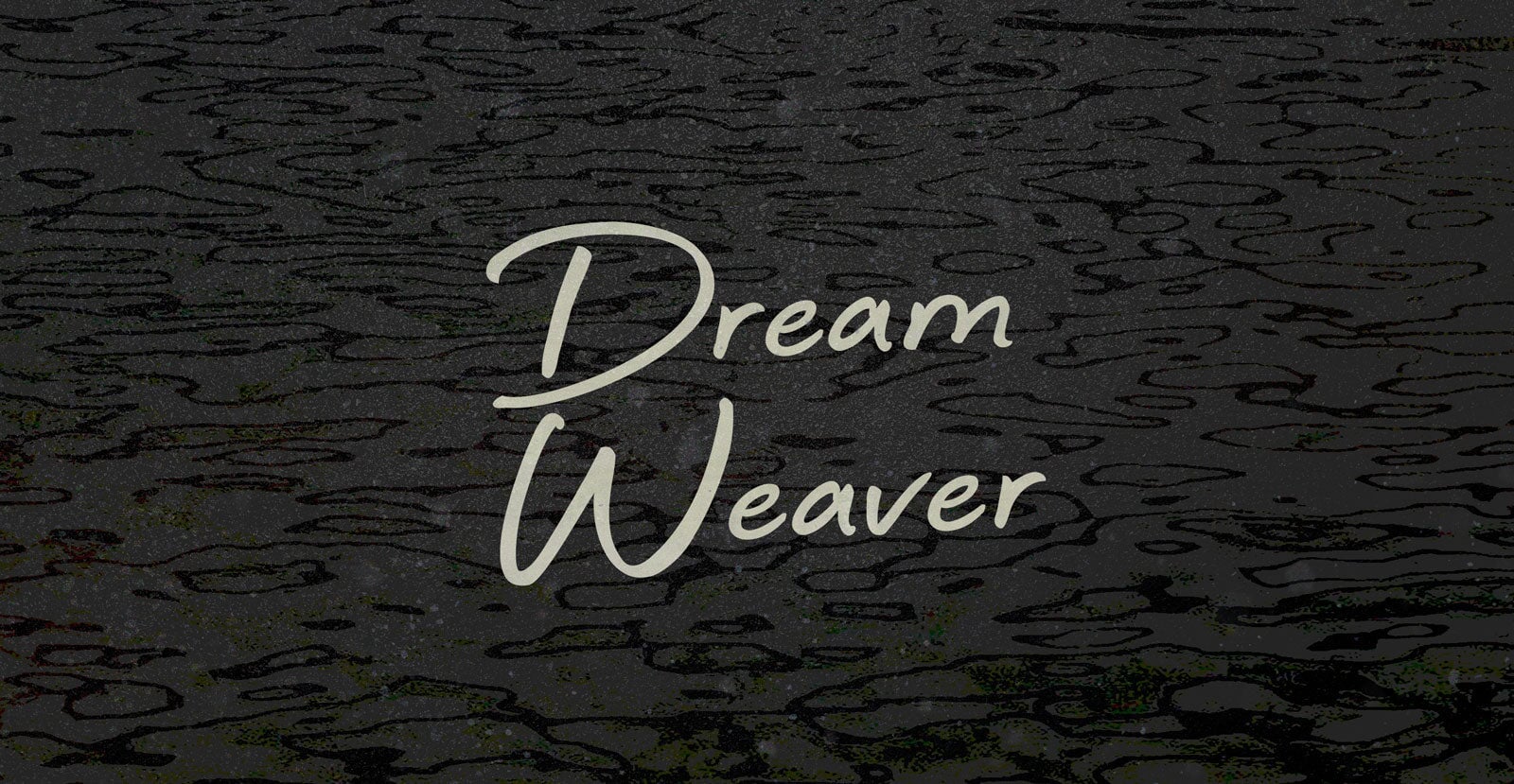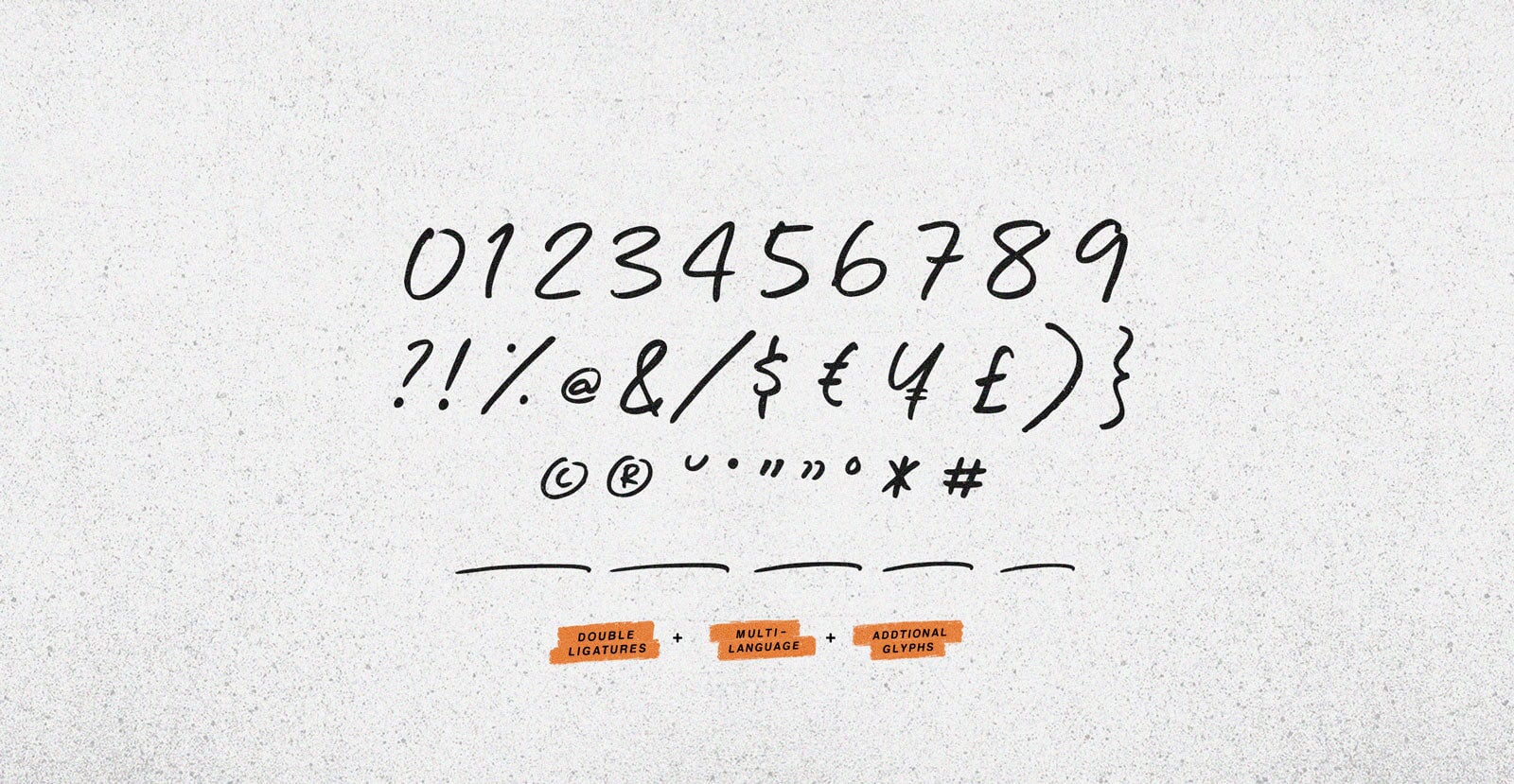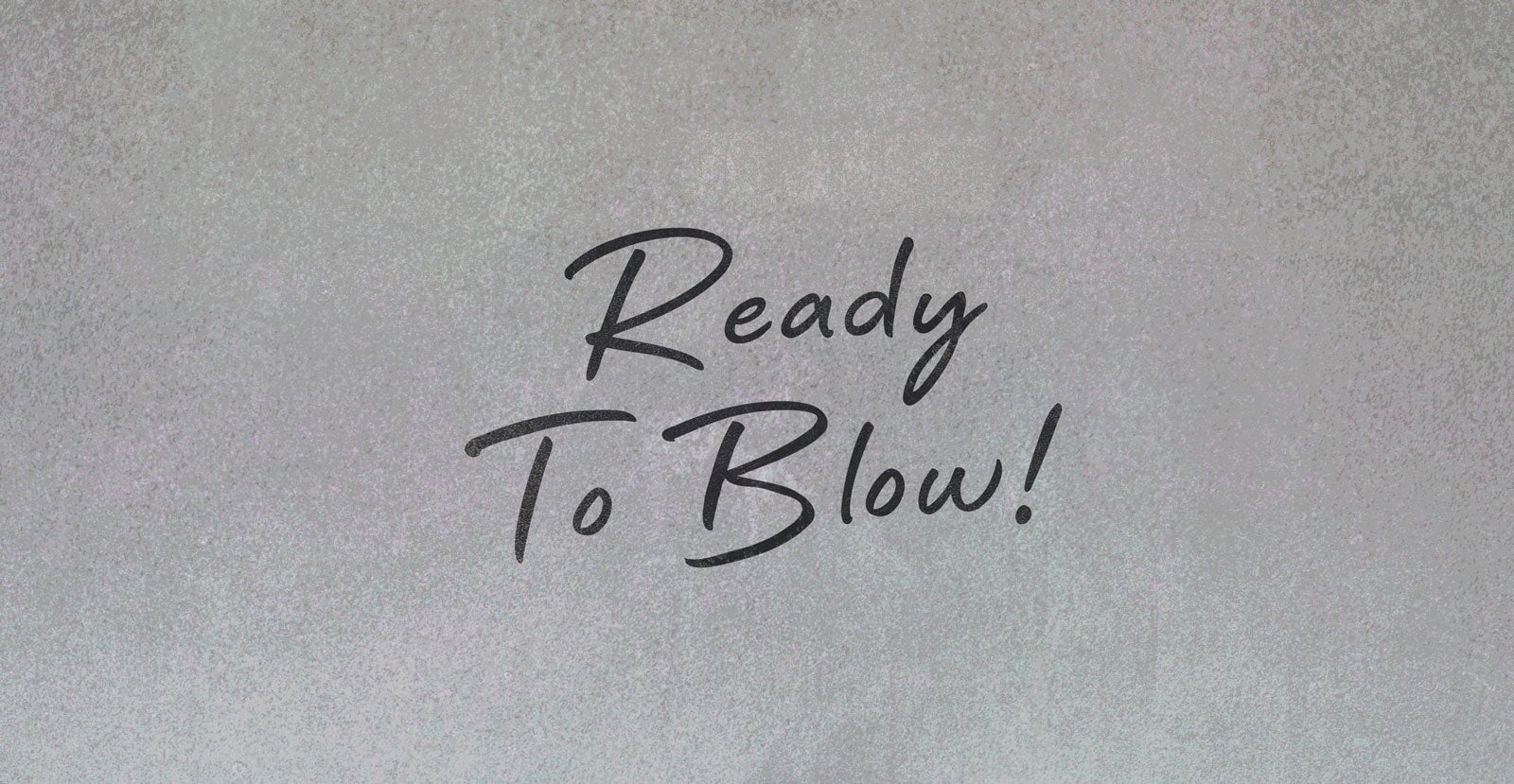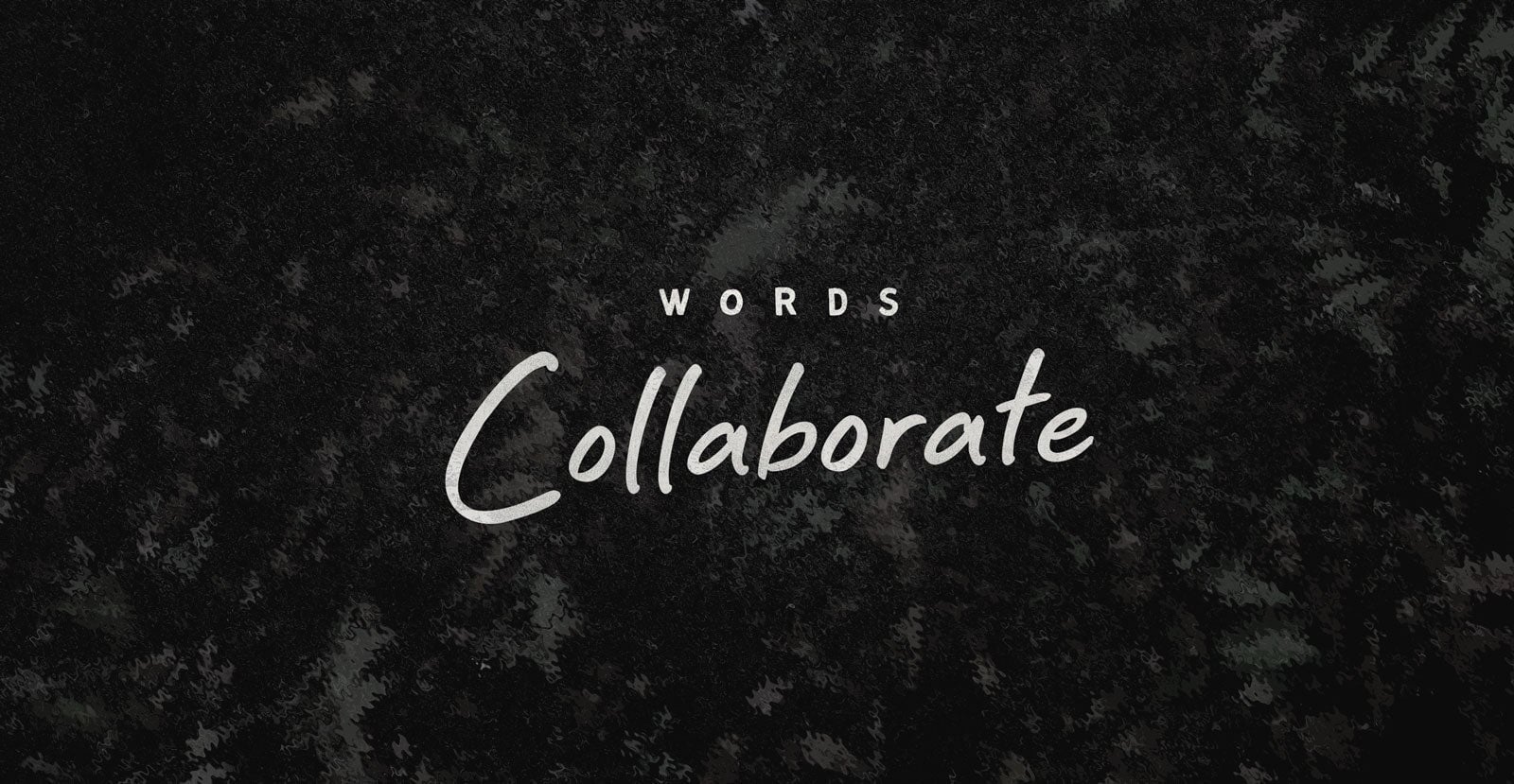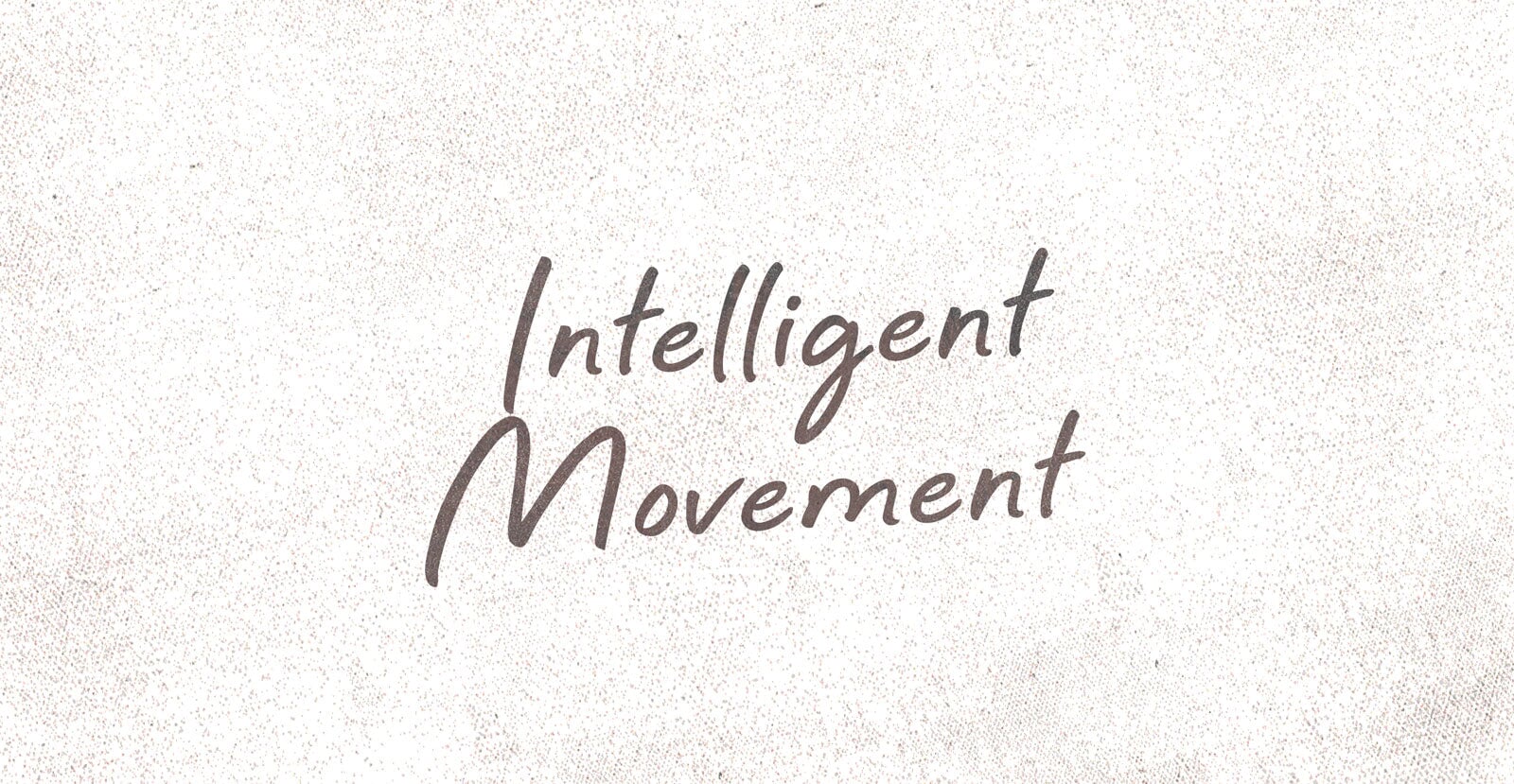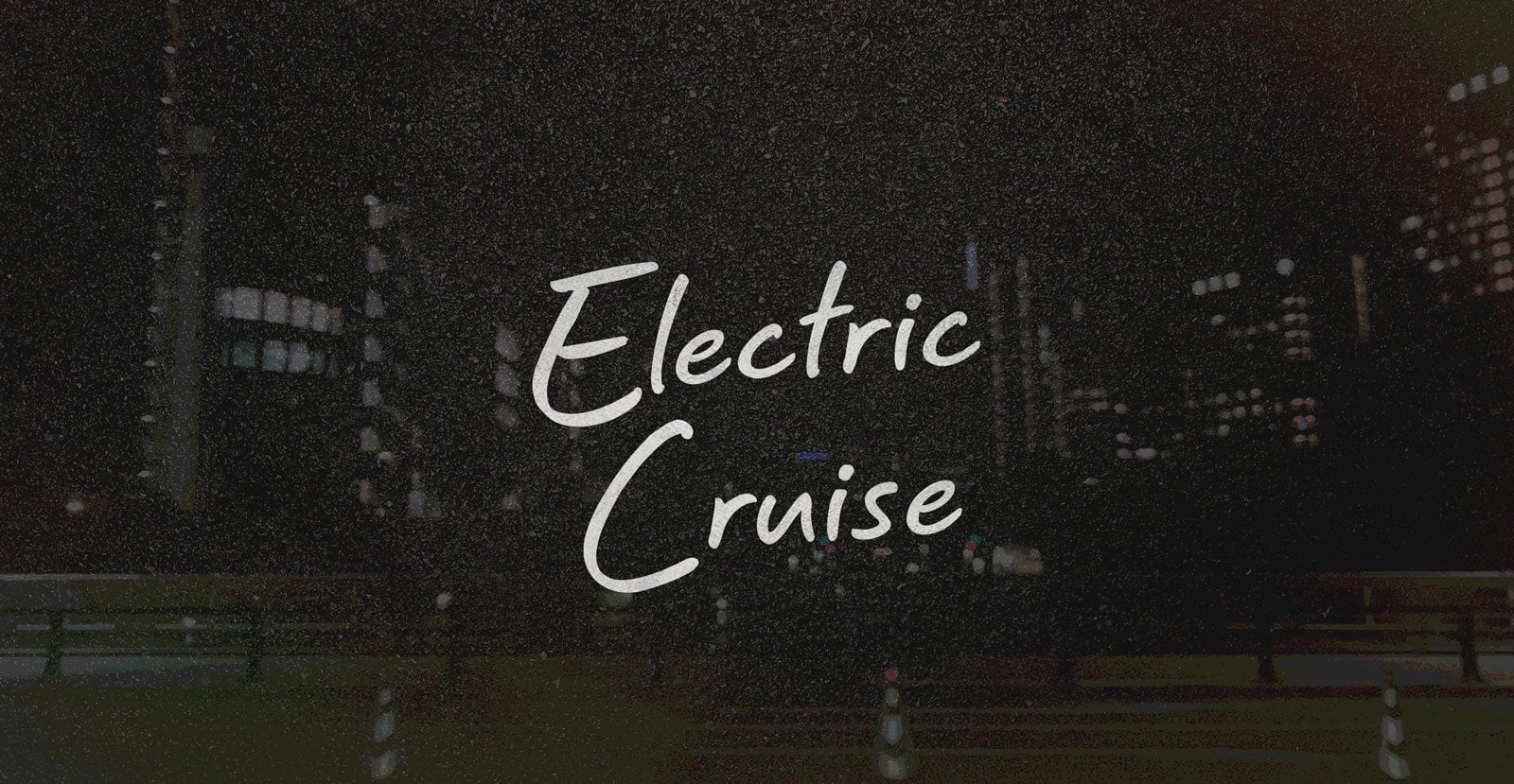
Dream Weaver
Whispered secrets and unfurled fantasies, captivating the minds of those who dared to listen. Through skillful hands, conjured worlds of wonder and mystery, where reality melded seamlessly with the surreal. Dream Weaver faded back into the realm of dreams, leaving behind a lingering sense of wonder and the promise of another night's enchantment.